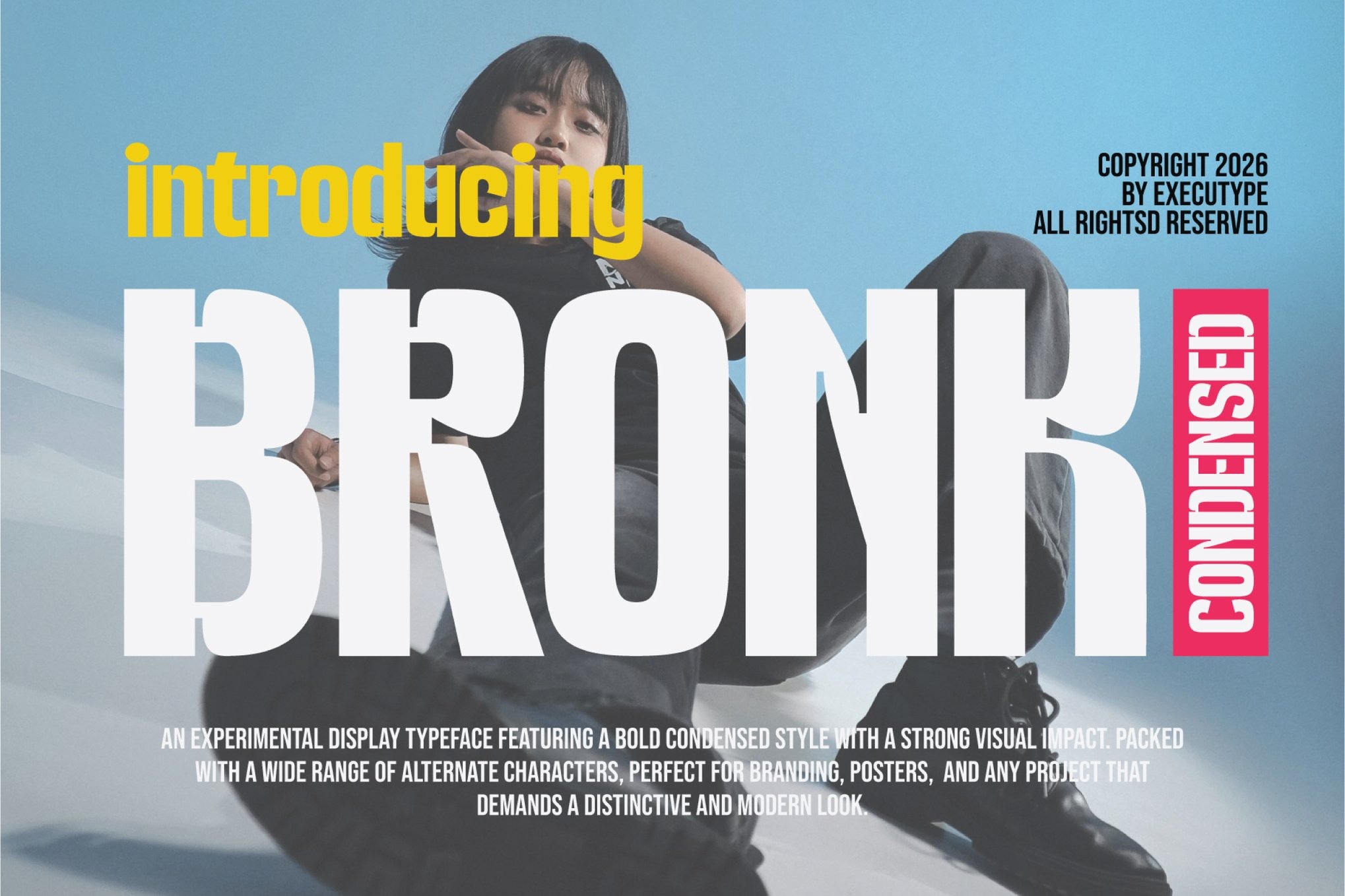
Bronk – Condensed Sans Serif Font
Bronk – Condensed Sans Serif Font is an experimental condensed display typeface featuring bold, heavy weights with a brutal and modern look. Designed for brands that demand attention.
With a wide range of alternate characters, Bronk is perfect for logos, headlines, posters, and any project that requires a distinctive and powerful look.
Full Uppercase & Lowercase
Numbers, Punctuation & Symbols
Multilingual Support
Alternate Characters & Ligatures